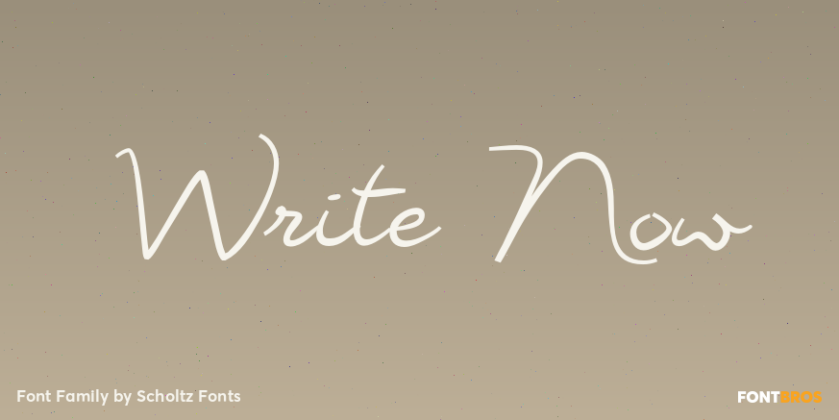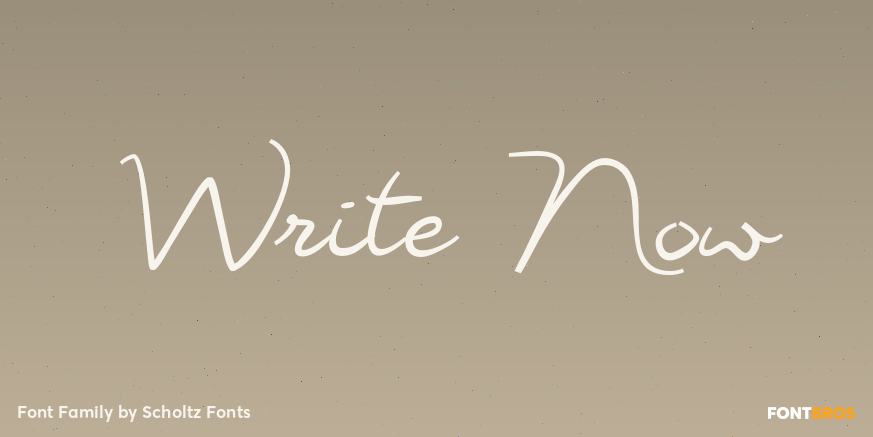
Write Now
About Write Now
Write Now is an elegant, informal, handwritten script font, developed from the designer\’s handwriting, and carefully crafted to create a flowing, legible image. The large, opulent capitals, with their loose loops and curves create a perfect foil for the…